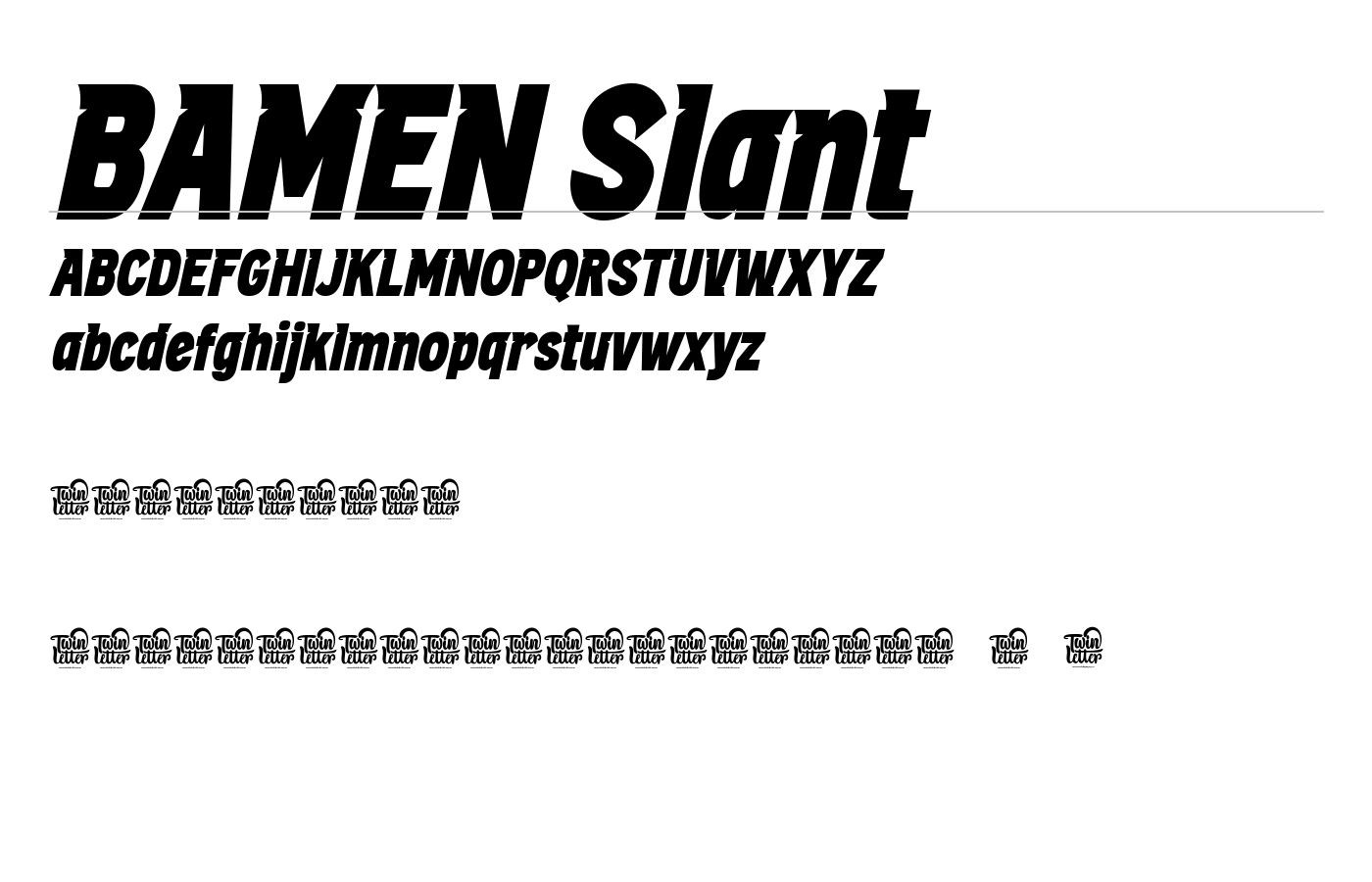
BAMEN trial is a bold, condensed sans serif font with a strong slant that conveys speed and energy. Its high contrast strokes and sharp angles give it a dynamic, sporty feel, making it perfect for impactful headlines, branding, or athletic-themed designs. This font's confident, modern style works well where a sense of movement and power is desired.
BAMEN trial Font
About BAMEN trial Font